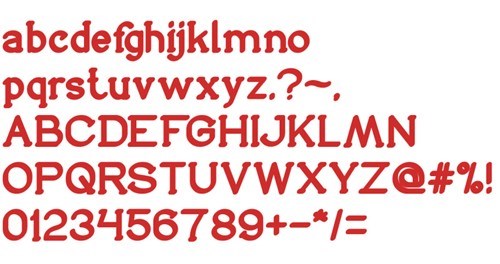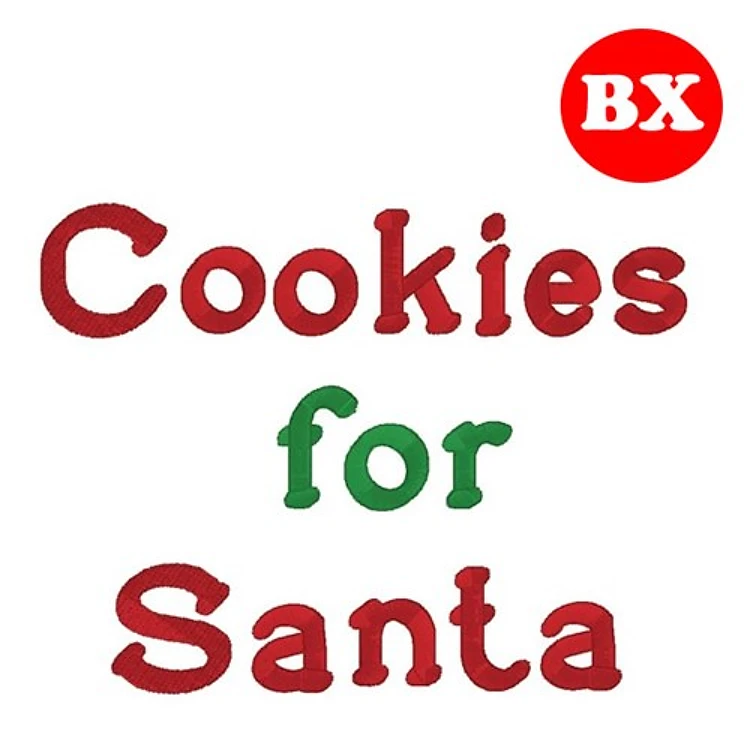
Unicorn Creatives is happy to present Cookies For Santa Embrilliance Embroidery Font - Playful Holiday Lettering - BX font machine embroidery font which has Playful decorative machine embroidery font, perfect for festive holiday projects on items like banners or pillows. The layered red and green letters read 'Cookies for Santa.' Available in BX font and Embrilliance format. included. If you would like to view more embroidery fonts and alphabets please search our embroidery fonts page.
Cookies For Santa Embrilliance Embroidery Font - Playful Holiday Lettering - BX font